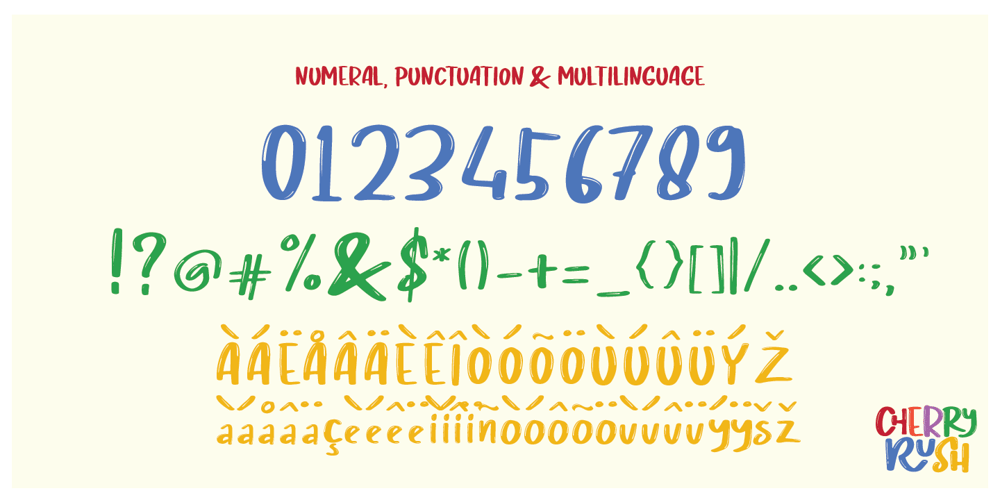
Cherry Rush Font Family was designed by Degi Kurniawan and published by D&K Project. Cherry Rush contains 3 styles and family package options. Cherry Rush – It’s fun, it’s cute, it’s smooth, and it’s mighty splash. A mixed-case font (Uppercase and lowercase) with lots of combination possibilities, make greats fun display! It’s good to make a logotype, sticker, fun kids sign, and other lettering project. This fun is perfect combination uppercase and lowercase. This font contains all uppercase, lowercase, numbers and basic punctuation also a fun 40 ligatures. (If you’re having trouble finding the basic punctuation, you can access it in the Glyphs panel) Please let me know in the comments what you think or if you have any issues or queries , If you have any questions about licensing, need help with a typeface, or would like to request a new feature, drop me a message.